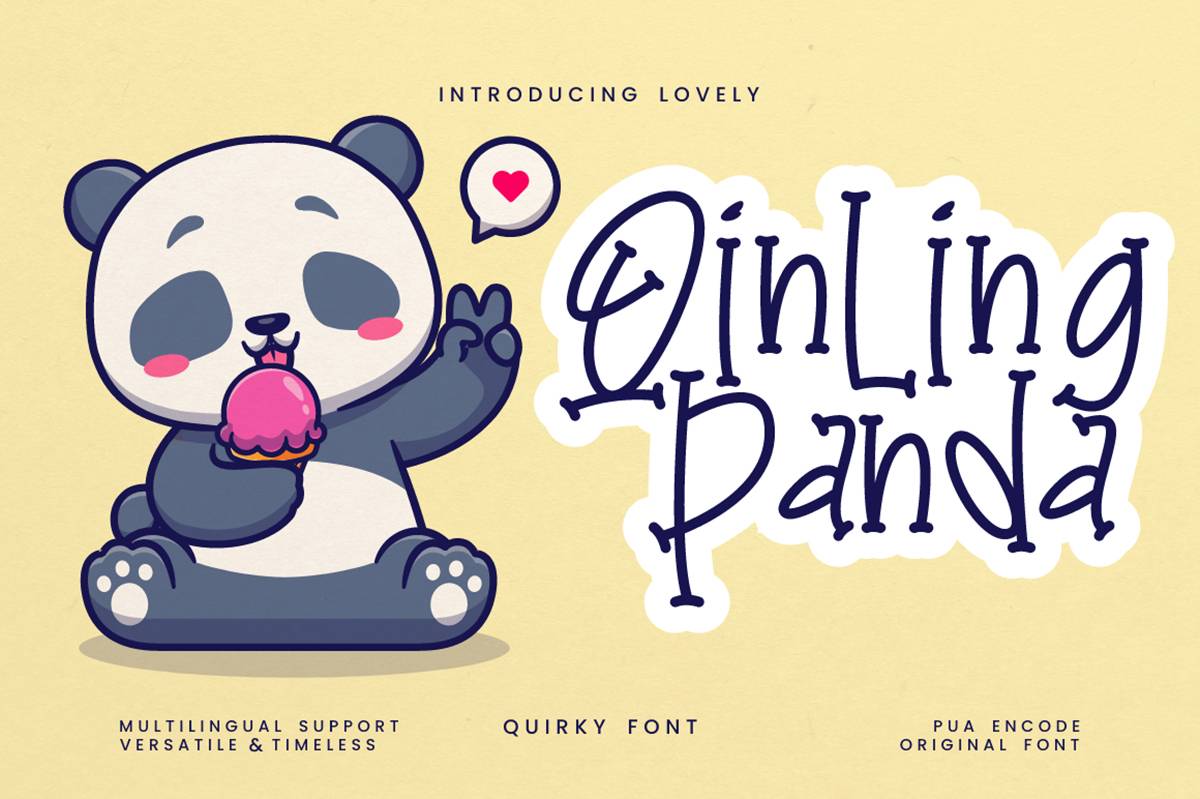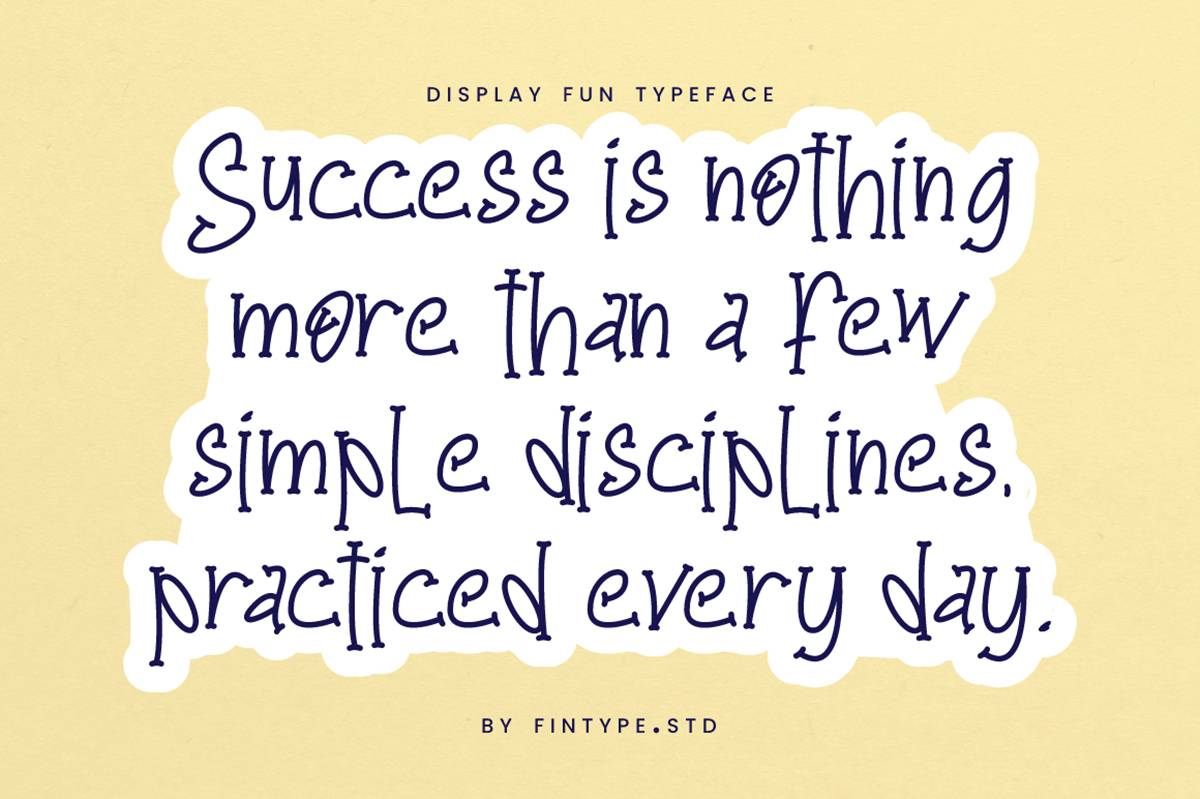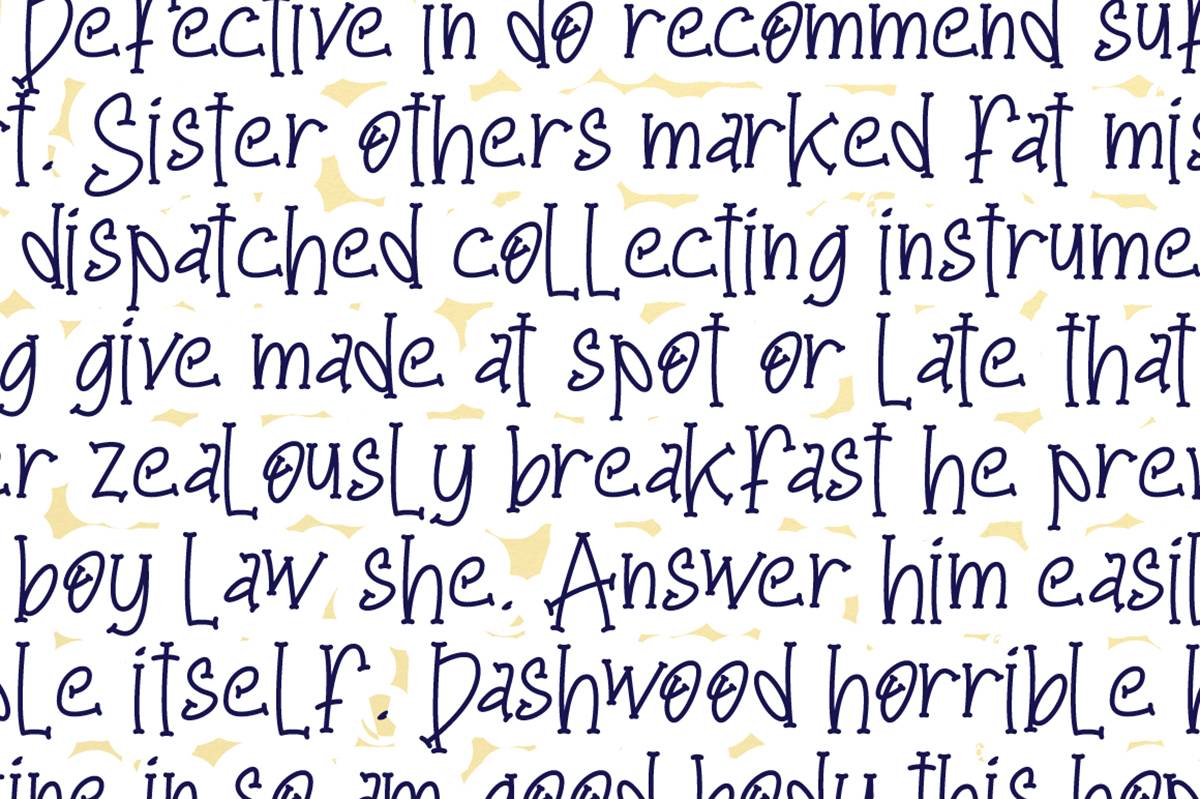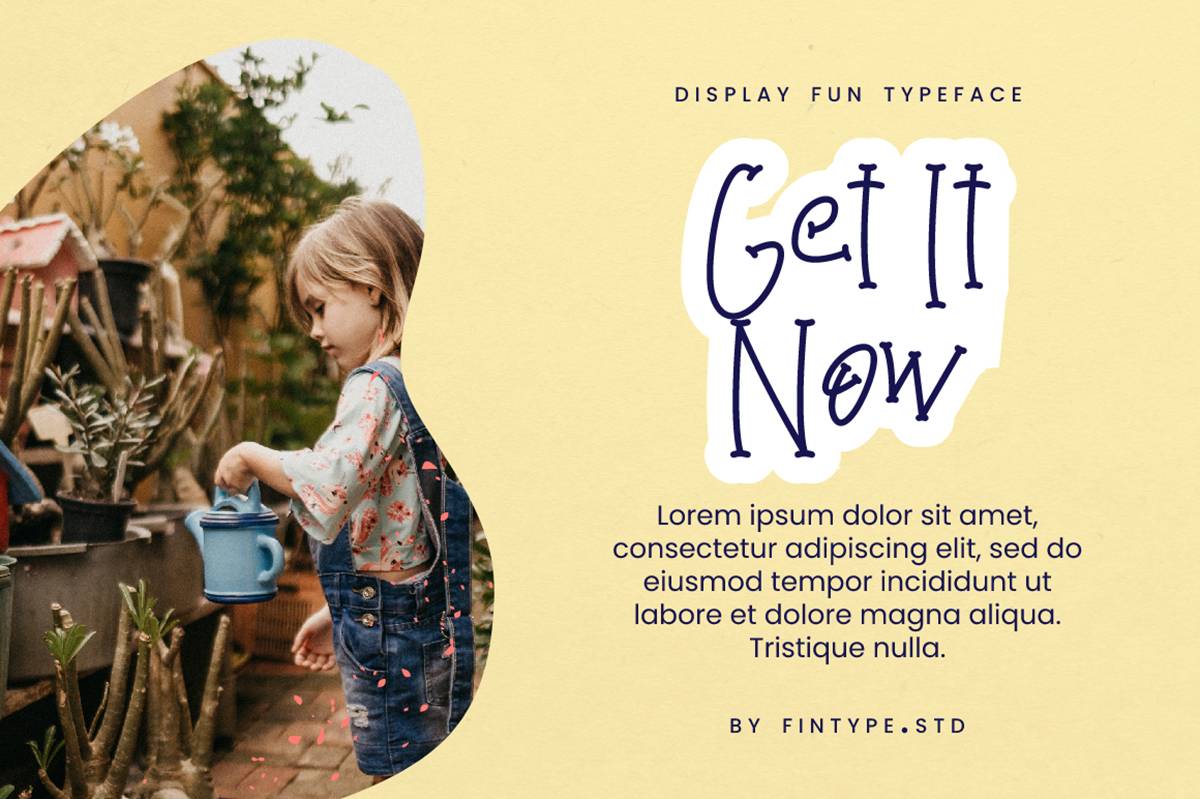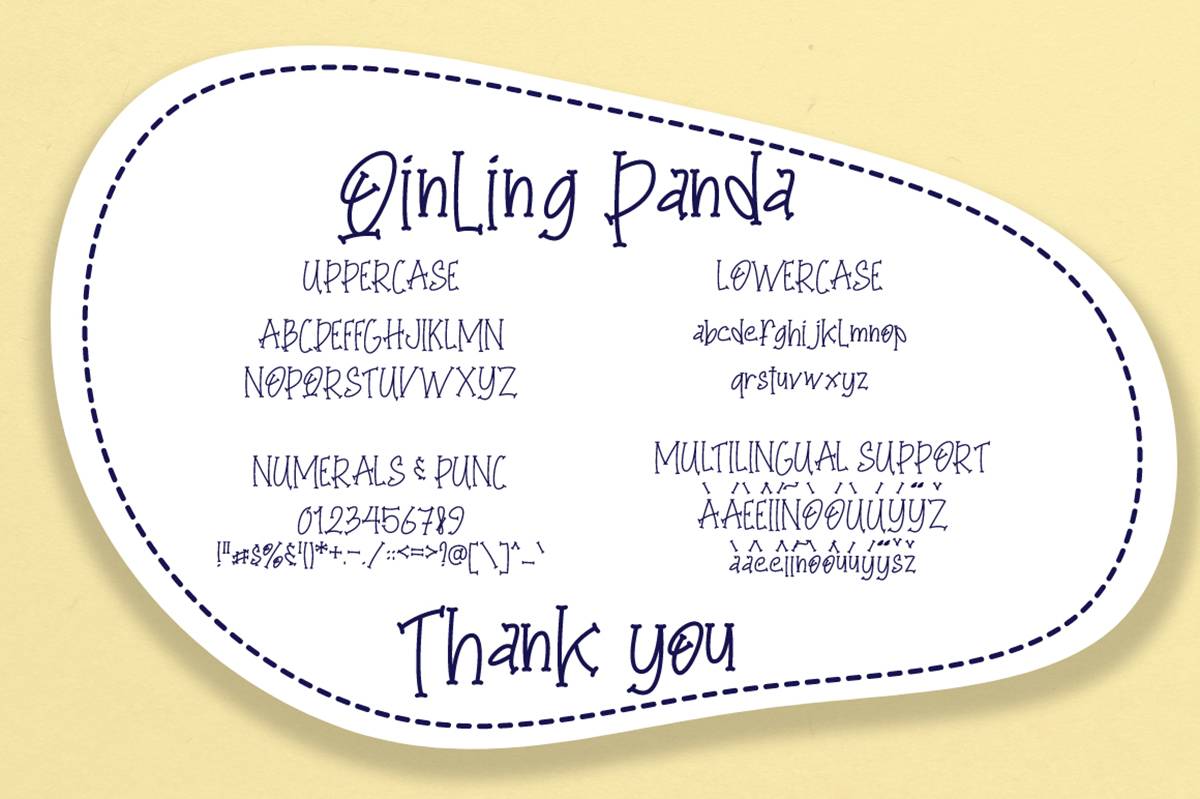
Qinling Panda is a whimsical, hand-drawn sans serif font with a playful and quirky character. Its irregular strokes and delicate, slightly uneven lines give it a friendly, casual feel, making it ideal for creative projects, children’s materials, and informal branding. This font works best in headlines, logos, and invitations where a fun, approachable personality is desired.
Qinling Panda Font
About Qinling Panda Font
| Font family | Qinling Panda Font |
| Designer | FinTypeStudio |